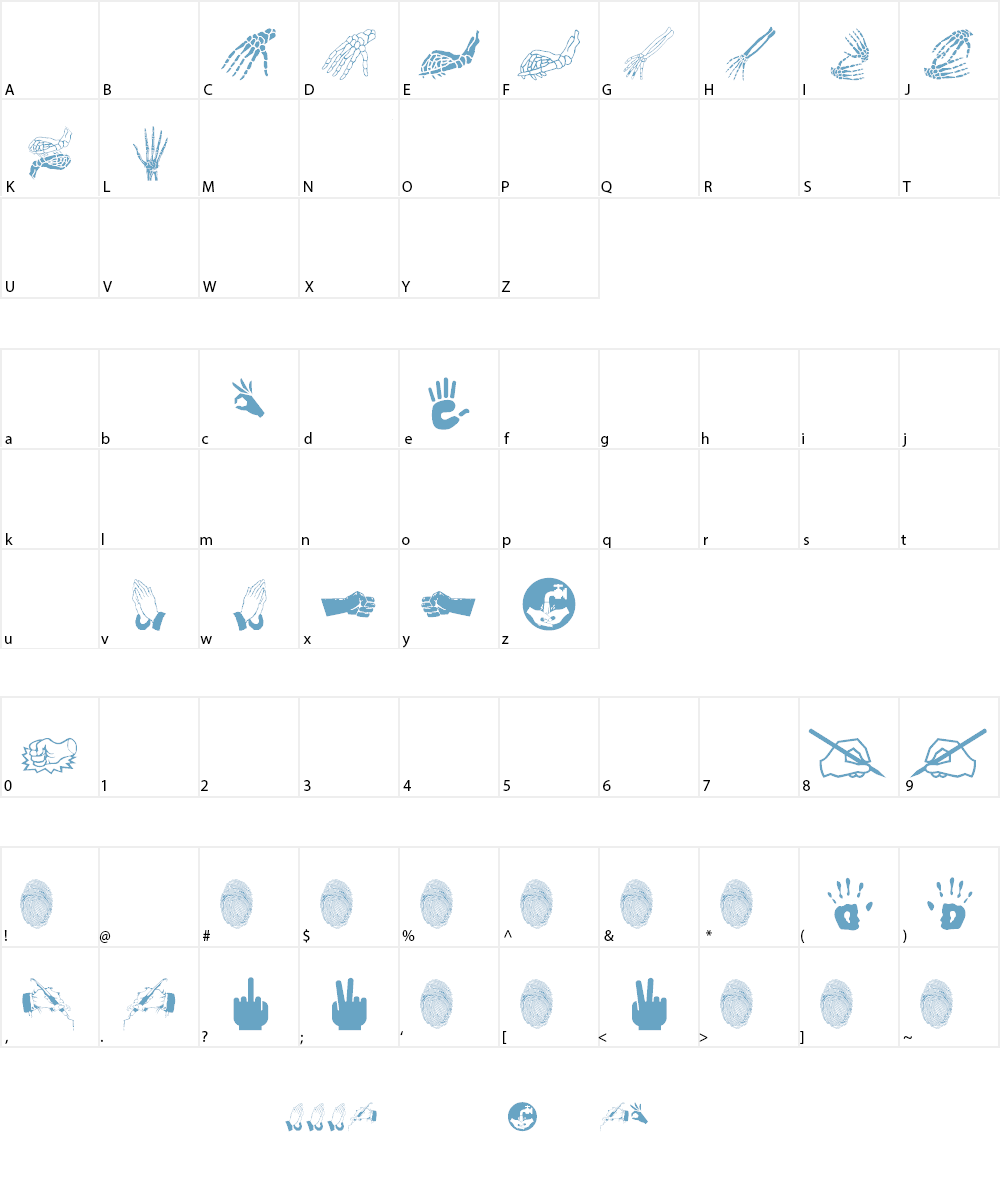
Handy Dings is a dingbat font I made back in 2003 to give a physical therapist in New Jersey. I don't know if he ever used it, but here is a chance for someone out there to give it some life.